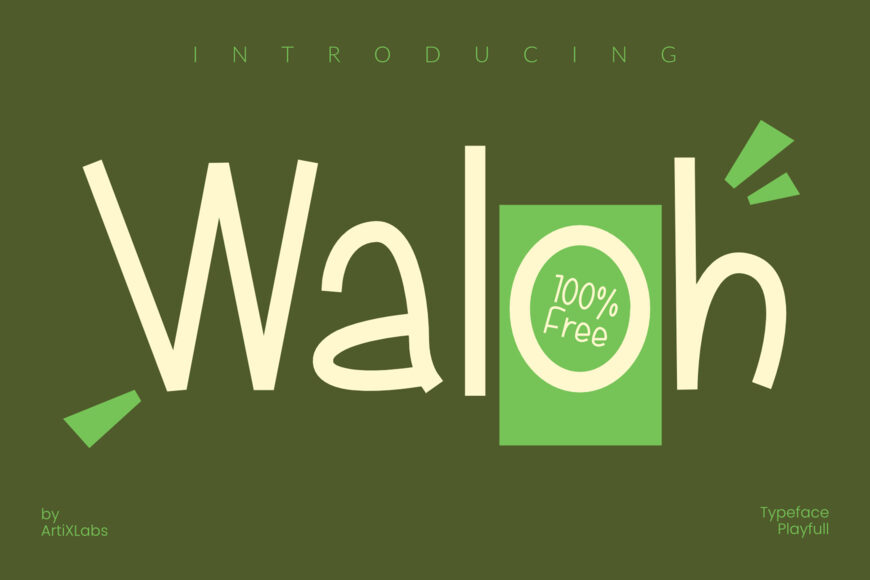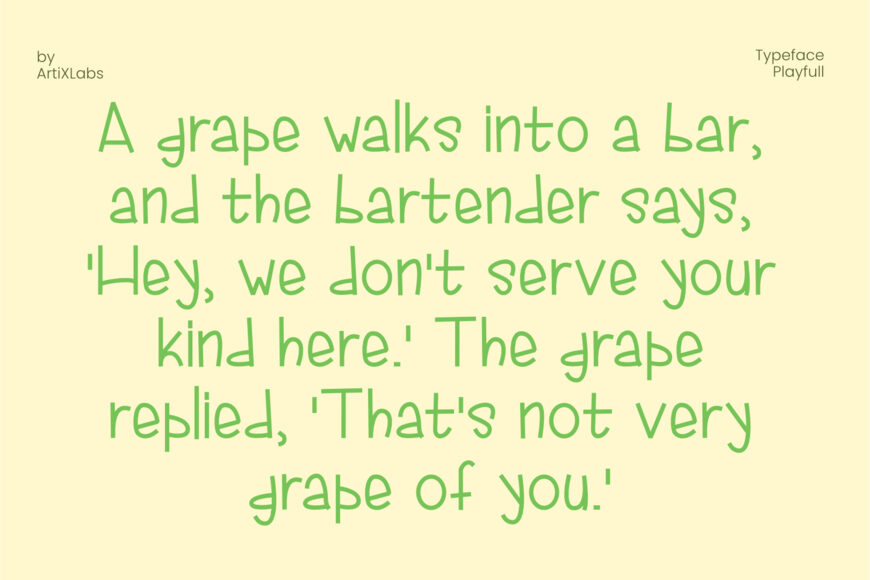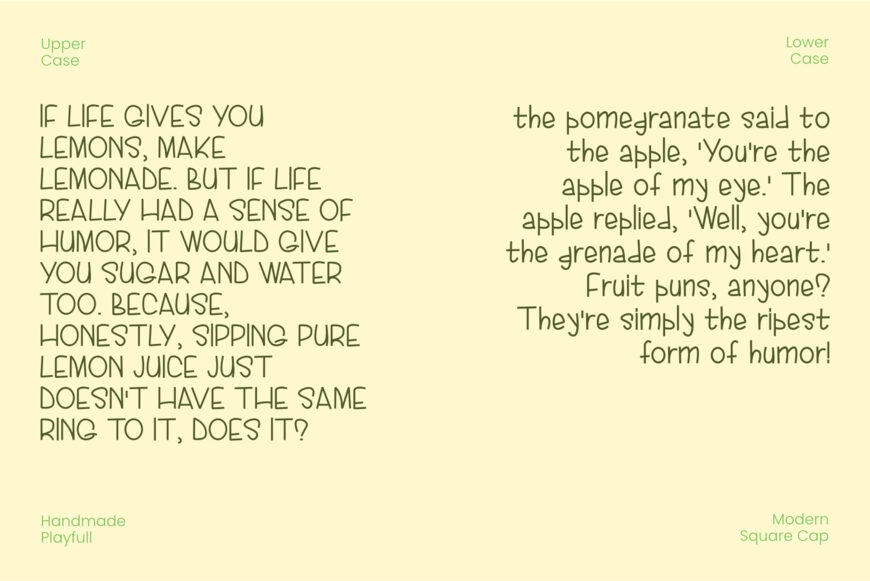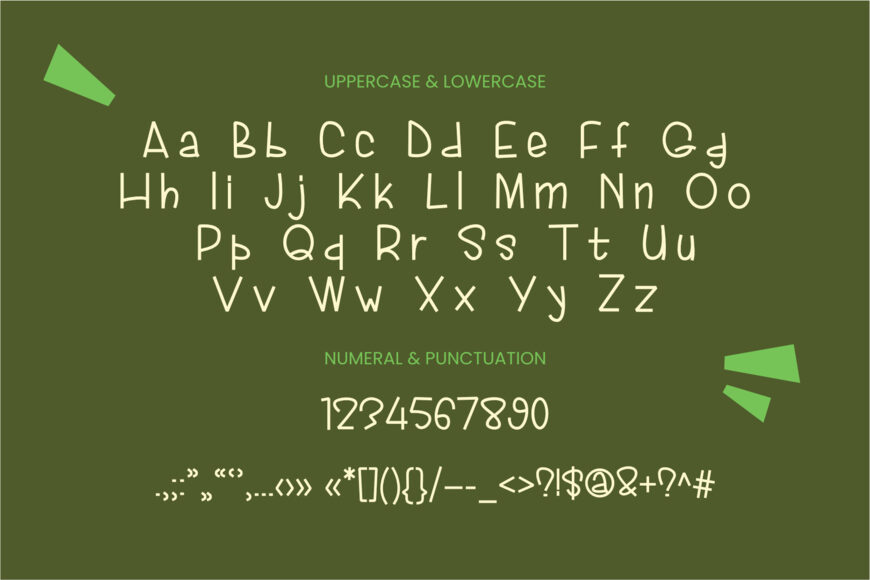
Designed by ArtiXLabs, Waloh is a playful, cute, and creative font tailored for kid-friendly designs, branding, and modern projects. Featuring a unique set of characters, it adds a fun and whimsical touch to logos, social media feeds, packaging, flyers, and merchandise.